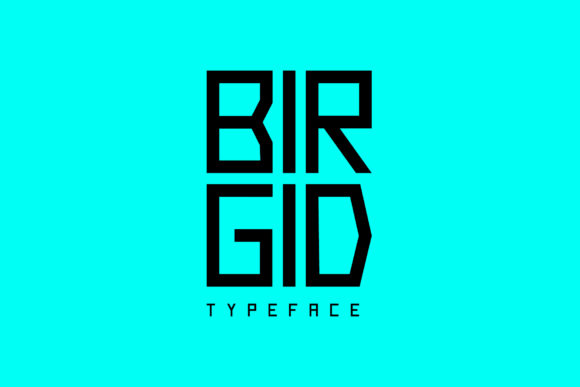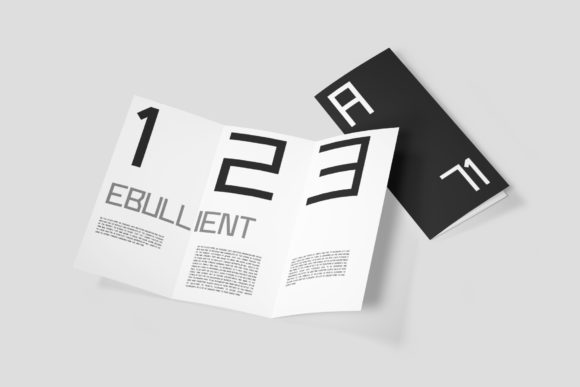
Introducing Birgid Font: The Ultimate Geometric Display Font for Stunning Designs
Are you a designer or crafter looking for a font that can elevate your visual creations to the next level? Look no further than Birgid Font, a cool and geometric display font that is sure to make your designs stand out. With its unique and modern aesthetic, Birgid Font is perfect for a wide range of applications, from posters and flyers to prints and more.
What Makes Birgid Font So Special?
Birgid Font is a geometric display font that boasts a clean and minimalist design. Its sleek lines and curves make it perfect for creating stunning visual effects that are sure to capture the attention of your audience. Whether you’re designing a poster, flyer, or print, Birgid Font is the perfect choice for adding a touch of sophistication and elegance to your work.
One of the things that sets Birgid Font apart from other fonts is its versatility. With its geometric design, Birgid Font can be used in a wide range of contexts, from modern and edgy to elegant and refined. Whether you’re creating a design for a fashion brand, a tech startup, or a creative agency, Birgid Font is sure to fit the bill.
Endless Possibilities with Birgid Font
So, what can you do with Birgid Font? The possibilities are endless! Here are just a few ideas to get you started:
- Create stunning posters and flyers that grab attention and leave a lasting impression
- Design eye-catching prints that showcase your brand’s personality and style
- Use Birgid Font to add a touch of sophistication to your business cards, brochures, and other marketing materials
- Experiment with different colors and textures to create unique and visually striking designs
Why Choose Birgid Font?
So, why should you choose Birgid Font for your design projects? Here are just a few reasons:
- Unique and modern aesthetic: Birgid Font boasts a unique and modern design that is sure to make your designs stand out
- Versatile and flexible: Birgid Font can be used in a wide range of contexts, from modern and edgy to elegant and refined
- Easy to read and understand: Despite its geometric design, Birgid Font is easy to read and understand, making it perfect for body text and headlines
- High-quality and professional: Birgid Font is a high-quality font that is perfect for professional designers and crafters
Tips and Tricks for Using Birgid Font
Here are a few tips and tricks for getting the most out of Birgid Font:
- Experiment with different font sizes and weights: Birgid Font comes in a range of font sizes and weights, so don’t be afraid to experiment and find the perfect combination for your design
- Pair Birgid Font with other fonts: Birgid Font pairs well with a range of other fonts, so try combining it with other fonts to create a unique and visually striking design
- Play with color and texture: Birgid Font looks great in a range of colors and textures, so don’t be afraid to get creative and try out different combinations
In conclusion, Birgid Font is a cool and geometric display font that is perfect for designers and crafters looking to elevate their visual creations to the next level. With its unique and modern aesthetic, versatility, and endless possibilities, Birgid Font is sure to become a go-to font in your design arsenal. So why wait? Download Birgid Font today and start exploring its endless possibilities!